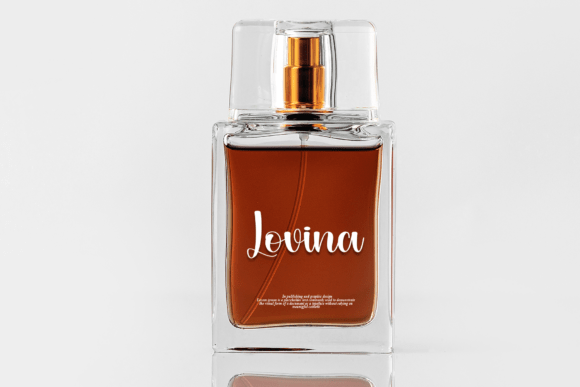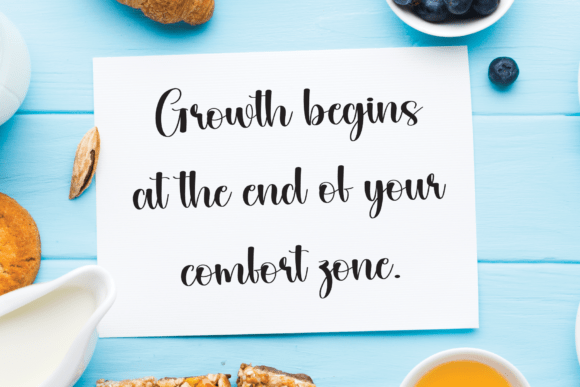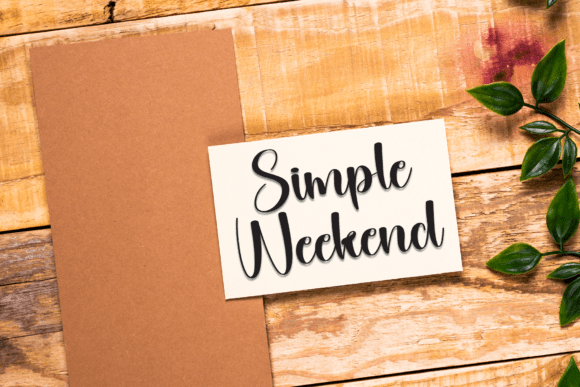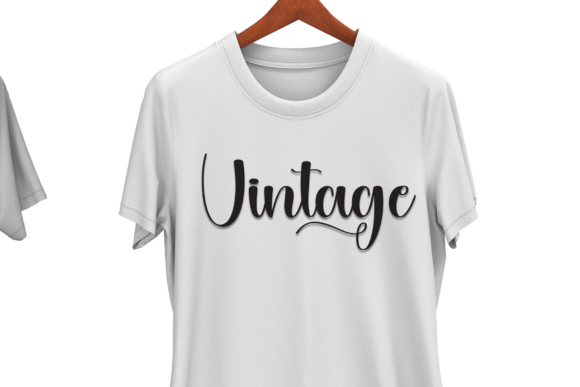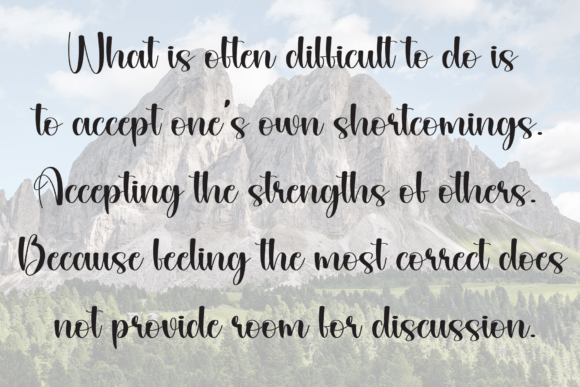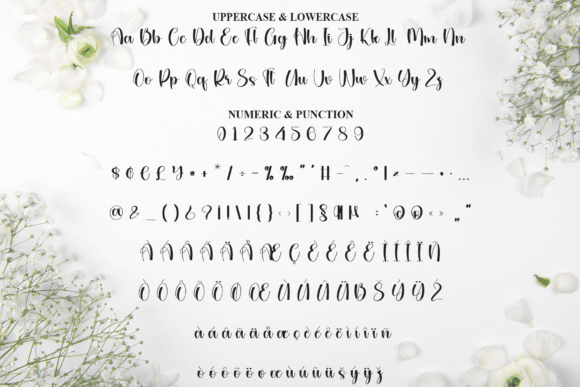
Introduction to Peacky Font
Have you ever been brainstorming a creative project, only to be stuck on the perfect font to match your vision? The right font can make all the difference in conveying the tone and style of your work. For designers, finding that perfect font can be a game-changer.
Enter the Peacky Font, a stylish handwritten script font that brings a touch of elegance and playfulness to any project. With its flowing curves and natural rhythm, it’s the perfect addition to invitations, branding, and social media. Whether you’re looking for a high-quality design resource or a free download, the Peacky Font is a valuable asset for designers seeking to add a personal, charming touch to their work.
Key Features of Peacky Font
- High-quality, unique font design ideal for creative projects and design resources.
- Features a transparent background, allowing for seamless integration into designs with complex backgrounds.
- Designed with a focus on readability and aesthetic appeal, making it suitable for a range of applications, from digital to print media.
- Supports various font sizes and resolutions, from small text to large headings, ensuring versatility in design projects.
- Perfect for designers and artists looking for a distinctive, high-quality design resource for their creative project.
Honest Review: Peacky Font
As a designer, I’m always on the lookout for high-quality design resources to elevate my creative projects. Recently, I stumbled upon the Peacky Font, and I’m excited to share my thoughts on this free download.
- Unique and playful style that adds a touch of whimsy to any design
- Excellent legibility, making it perfect for body text and headings
- Transparent background option allows for seamless integration with any background image or color
- Only available in a limited number of weights, which might not be suitable for all design projects
- No bold or italic styles, which could be a drawback for some designers
Overall, I’m impressed with the Peacky Font’s potential to add a creative touch to any design project. While it may have some limitations, its unique style and excellent legibility make it a valuable addition to any design resource collection. If you’re looking for a free font that can help you stand out, Peacky Font is definitely worth checking out.
Peacky Font is a high-quality, free download design resource ideal for creative projects requiring a unique and elegant touch. With its transparent background, it seamlessly integrates into any design.
Tips for Getting the Most Out of Peacky Font
For optimal results, use Peacky Font in conjunction with a high-contrast background to maximize its impact. Experiment with different font sizes and colors to achieve the desired effect.
Peacky Font is suitable for various creative projects, including logos, typography, and branding materials. Its elegant and sophisticated design makes it perfect for high-end marketing materials and design projects.
Is Peacky Font suitable for large-scale designs?
Yes, Peacky Font is designed to be scalable and suitable for large-scale designs. Its high-quality vector format ensures that it remains crisp and clear even at large sizes. However, please note that the font’s transparency may be affected at very large sizes, so it’s recommended to use it at sizes up to 1000px.